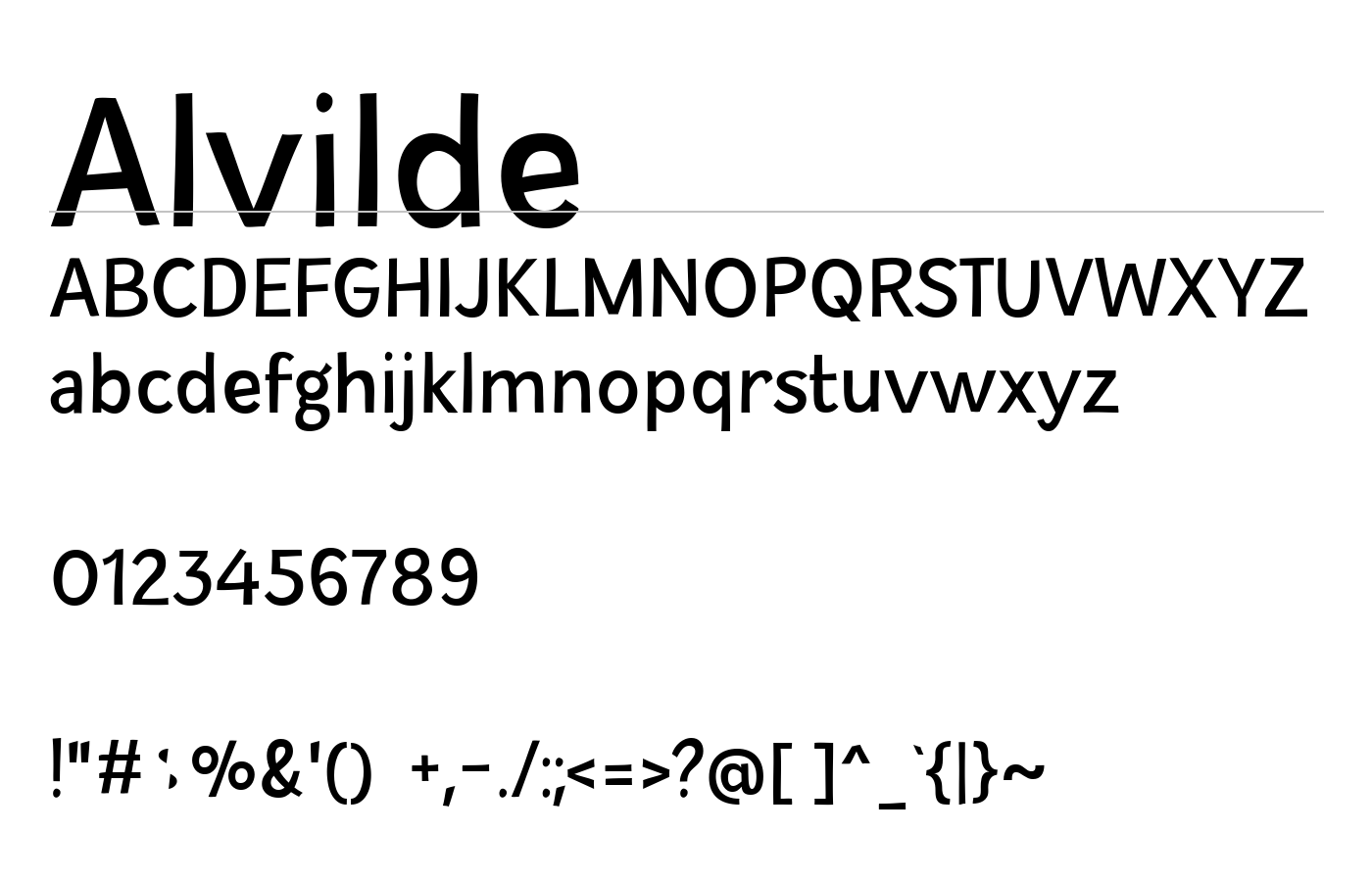
Alvilde is a quirky sans serif font with a slightly uneven, hand-crafted feel that adds personality without sacrificing readability. Its moderate weight, open letterforms, and subtle irregularities make it great for friendly, approachable branding, editorial headlines, and creative projects seeking a playful yet clear style. This font works well when you want to convey warmth and uniqueness in a modern design.
Alvilde Font
About Alvilde Font
| Font family | Alvilde Font |
| Designer | Misti's Fonts |